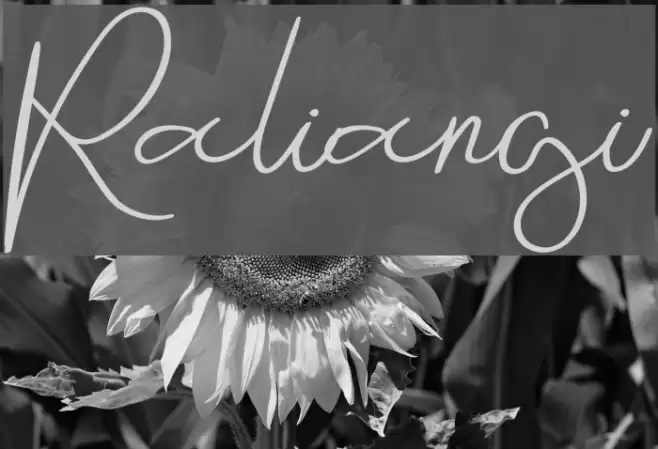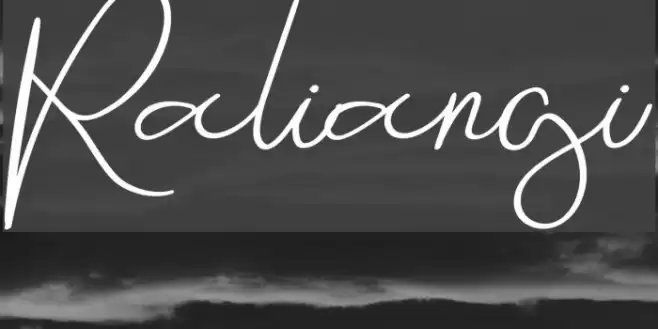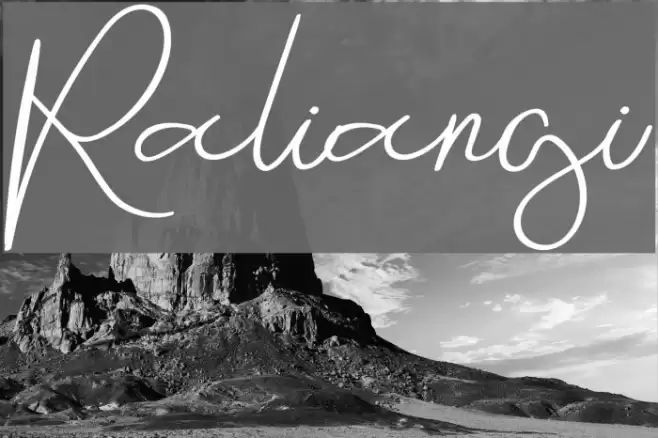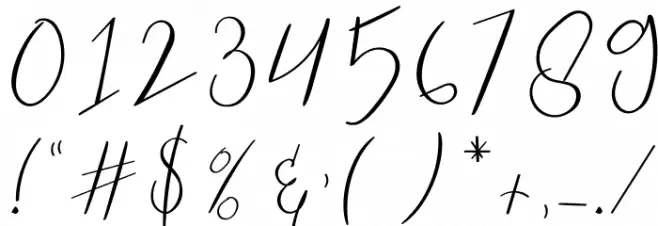
Raliangi Font
Raliangi Description
This font exudes a lively and elegant handwritten style, characterized by its fluid and cursive strokes. The uppercase letters are tall and slightly slanted, while the lowercase letters maintain a consistent flow, enhancing the script's natural and organic feel. The numerals are distinct and maintain the cursive theme, adding a playful touch. Special characters are creatively integrated, maintaining the overall aesthetic. The font's design is both sophisticated and approachable, making it versatile for various creative applications.
A lively and elegant handwritten script with fluid, cursive strokes from Uncategorized fonts.
- Proposed Projects: Ideal for wedding invitations, greeting cards, personal branding, and artistic projects that require a touch of elegance and personality.
- Use Case: Logos, Invitations, Artistic projects